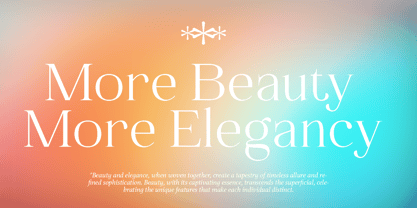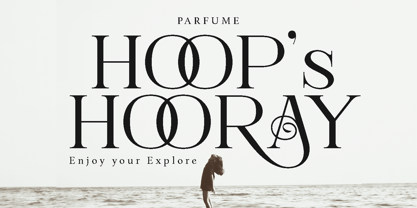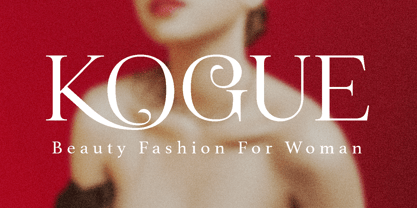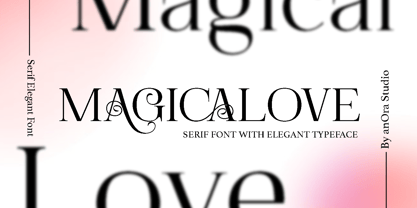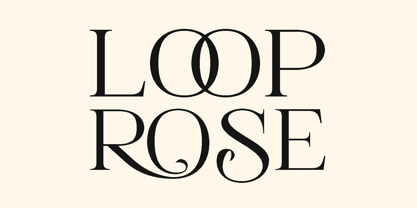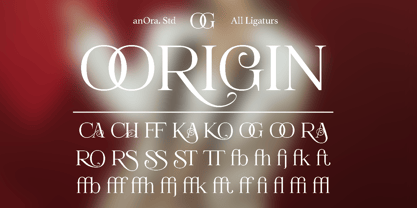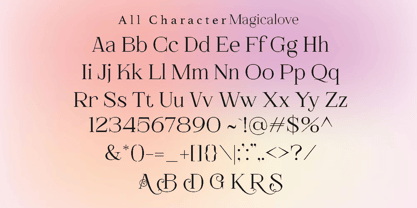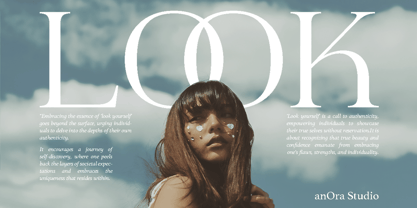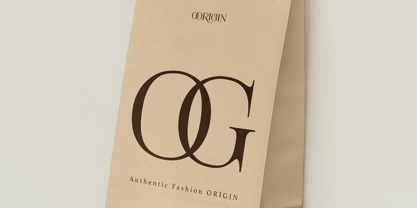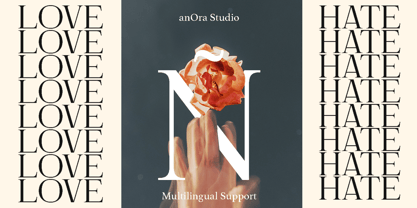
Magicalove
by Anora Studio
The Magicalove Font Family was designed by Sigit Mulyo Utomo and published by Anora Studio. Magicalove contains 1 styles. More about this family
Magicalove is a Romantic Display Serif Font with Elegant Typeface Alternates and Ligatures.
Designers: Sigit Mulyo Utomo
Foundry: Anora Studio